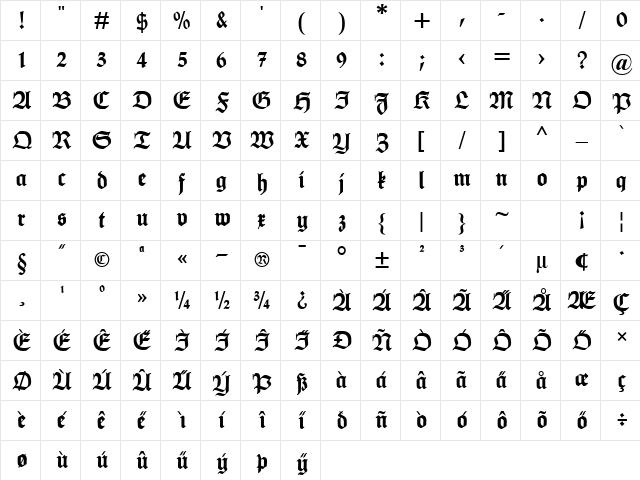
HumboldtFrakturUNZ1L Italic Font Preview
Design Context for HumboldtFrakturUNZ1L Typeface
HumboldtFrakturUNZ1L channels the dramatic heritage of Fraktur and Gothic scripts, bringing a sense of historical gravitas to any design. The slanted form adds forward momentum and visual energy. The heavy weight commands attention and anchors typographic hierarchies.
A natural fit for music packaging, gothic editorial design, and any project that needs historical weight.
Font Pairing: Pair with a clean neutral sans-serif for body copy to let HumboldtFrakturUNZ1L's character lead without overwhelming the composition.
Pro Tip: Reserve HumboldtFrakturUNZ1L for display and logo use — pair it with a clean sans-serif for body copy to prevent the composition from feeling oppressive.